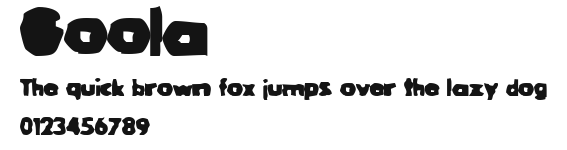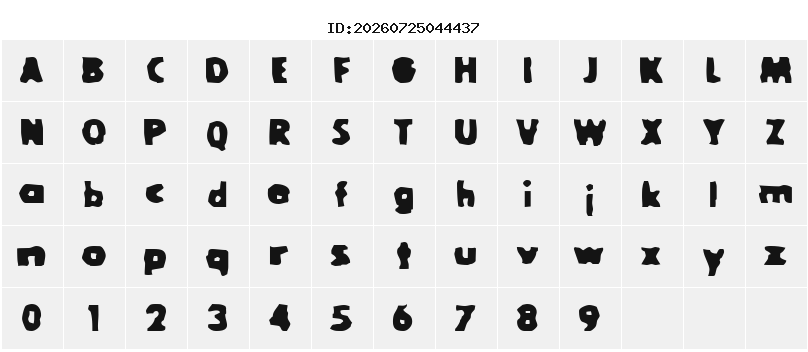
• Font Name: Goola
• Designer: Meir Sadan
• Description: This ink catastrophe you see below is called the Goola typeface. This font is the hallmark of bad taste and excessive weight gaining. In spite of the heaviness of this typeface, it still has a fairly high level of chunkiness. Some sort of element that keeps it "strong". The use of a diversion of the famous "Avante-Garde" typeface as a base for this grunge font is certainly not coincidencial - this specific typeface's glyphes curve only when needed, giving the letters a sense of steadiness. I have no idea what "Goola" means. I hope it doesn't mean anything bad in some ancient african tongue though. I really like this font.